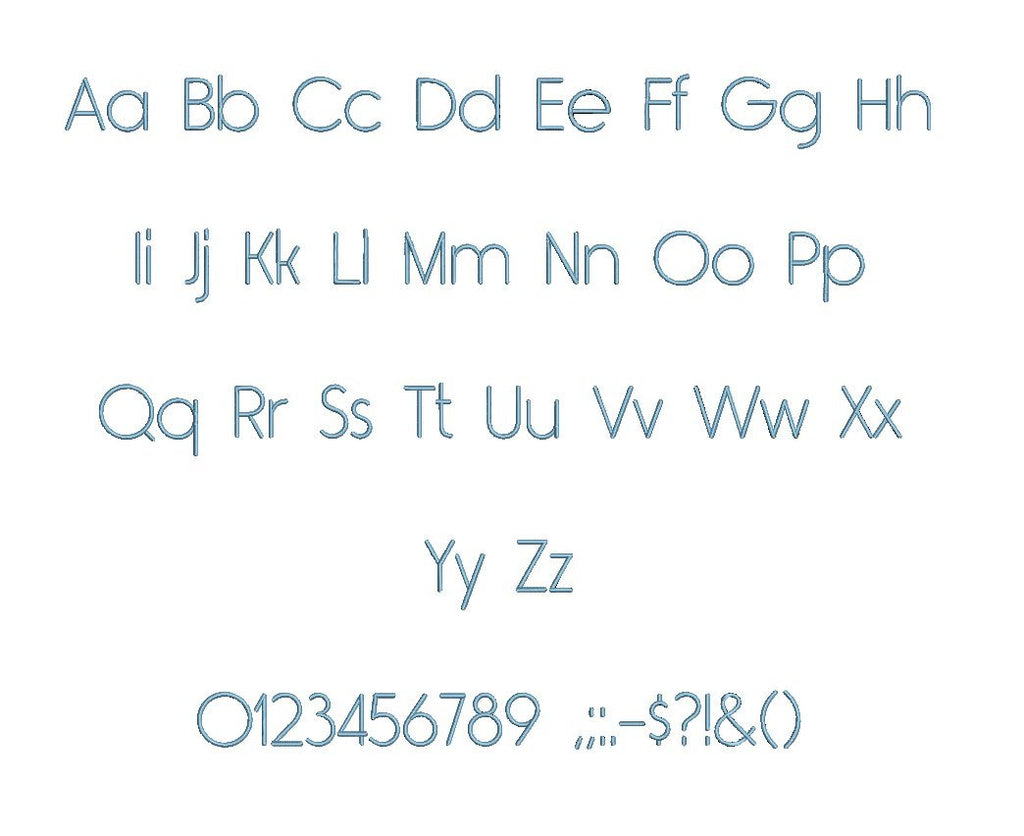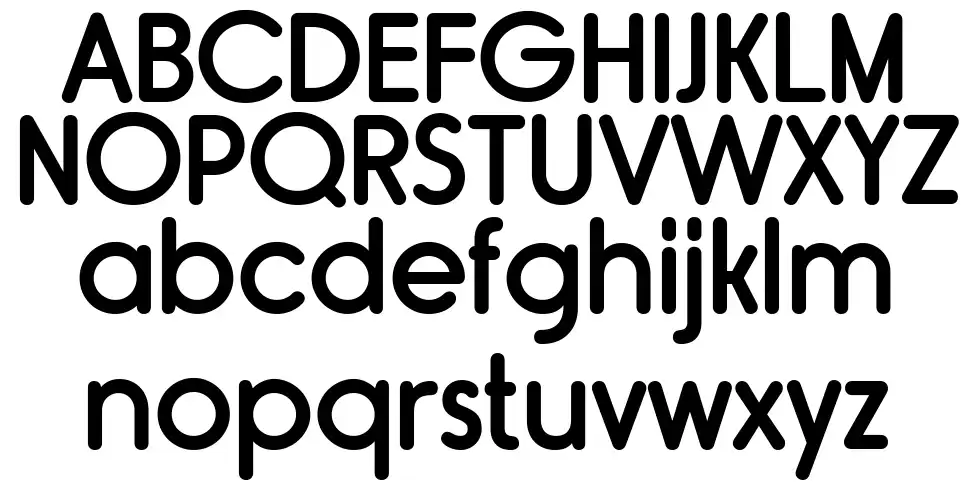
Rimouski Font . Use the opentype stylistic alternates feature to unleash a slew of strangely slanted. rimouski is a rounded geometric typeface with a refined appearance. rimouski is a rounded geometric font family. licensed for personal and commercial use. Use the opentype stylistic alternates feature to unleash a spate of strangely slanted. rimouski is a rounded geometric typeface with a refined appearance. download rimouski font · free for commercial use · rimouski is a rounded geometric typeface with a refined. Its appealing letterforms and soft, precise points will. rimouski is a rounded geometric font family. about rimouski font family introducing rimouski, the rounded geometric typeface that brings a touch of refined elegance to any design project.
rimouski is a rounded geometric font family. Use the opentype stylistic alternates feature to unleash a spate of strangely slanted. licensed for personal and commercial use. about rimouski font family introducing rimouski, the rounded geometric typeface that brings a touch of refined elegance to any design project. download rimouski font · free for commercial use · rimouski is a rounded geometric typeface with a refined. Use the opentype stylistic alternates feature to unleash a slew of strangely slanted. Its appealing letterforms and soft, precise points will. rimouski is a rounded geometric typeface with a refined appearance. rimouski is a rounded geometric typeface with a refined appearance.
Rimouski Font Its appealing letterforms and soft, precise points will. about rimouski font family introducing rimouski, the rounded geometric typeface that brings a touch of refined elegance to any design project. Use the opentype stylistic alternates feature to unleash a slew of strangely slanted. rimouski is a rounded geometric font family. Use the opentype stylistic alternates feature to unleash a spate of strangely slanted. rimouski is a rounded geometric typeface with a refined appearance. rimouski is a rounded geometric typeface with a refined appearance. download rimouski font · free for commercial use · rimouski is a rounded geometric typeface with a refined. Its appealing letterforms and soft, precise points will. licensed for personal and commercial use.
Rimouski Font And Text Generator Pngtree Rimouski Font download rimouski font · free for commercial use · rimouski is a rounded geometric typeface with a refined. rimouski is a rounded geometric font family. about rimouski font family introducing rimouski, the rounded geometric typeface that brings a touch of refined elegance to any design project. Use the opentype stylistic alternates feature to unleash a spate of. Rimouski Font.
Rimouski Fonts Shmonts Rimouski Font rimouski is a rounded geometric font family. about rimouski font family introducing rimouski, the rounded geometric typeface that brings a touch of refined elegance to any design project. licensed for personal and commercial use. rimouski is a rounded geometric typeface with a refined appearance. Use the opentype stylistic alternates feature to unleash a spate of strangely. Rimouski Font.
Rimouski font Font Tr Rimouski Font licensed for personal and commercial use. rimouski is a rounded geometric typeface with a refined appearance. download rimouski font · free for commercial use · rimouski is a rounded geometric typeface with a refined. rimouski is a rounded geometric typeface with a refined appearance. Its appealing letterforms and soft, precise points will. Use the opentype stylistic. Rimouski Font.
Rimouski font Font Tr Rimouski Font about rimouski font family introducing rimouski, the rounded geometric typeface that brings a touch of refined elegance to any design project. Use the opentype stylistic alternates feature to unleash a slew of strangely slanted. Use the opentype stylistic alternates feature to unleash a spate of strangely slanted. rimouski is a rounded geometric font family. rimouski is a. Rimouski Font.
Download Rimouski font Rimouski Font download rimouski font · free for commercial use · rimouski is a rounded geometric typeface with a refined. Its appealing letterforms and soft, precise points will. Use the opentype stylistic alternates feature to unleash a spate of strangely slanted. about rimouski font family introducing rimouski, the rounded geometric typeface that brings a touch of refined elegance to any. Rimouski Font.
Rimouski Fonts Shmonts Rimouski Font rimouski is a rounded geometric font family. rimouski is a rounded geometric typeface with a refined appearance. Use the opentype stylistic alternates feature to unleash a slew of strangely slanted. rimouski is a rounded geometric typeface with a refined appearance. licensed for personal and commercial use. Its appealing letterforms and soft, precise points will. about. Rimouski Font.
Rimouski Light Regular Download For Free, View Sample Text, Rating Rimouski Font rimouski is a rounded geometric font family. Use the opentype stylistic alternates feature to unleash a spate of strangely slanted. download rimouski font · free for commercial use · rimouski is a rounded geometric typeface with a refined. rimouski is a rounded geometric font family. rimouski is a rounded geometric typeface with a refined appearance. Use. Rimouski Font.
Rimouski Light™ block embroidery font dst/exp/jef/hus/vip/vp3/xxx 15 s Rimouski Font licensed for personal and commercial use. rimouski is a rounded geometric font family. Use the opentype stylistic alternates feature to unleash a slew of strangely slanted. rimouski is a rounded geometric font family. Its appealing letterforms and soft, precise points will. rimouski is a rounded geometric typeface with a refined appearance. rimouski is a rounded. Rimouski Font.
Rimouski Font All Free Fonts Rimouski Font Use the opentype stylistic alternates feature to unleash a spate of strangely slanted. rimouski is a rounded geometric typeface with a refined appearance. rimouski is a rounded geometric font family. about rimouski font family introducing rimouski, the rounded geometric typeface that brings a touch of refined elegance to any. Rimouski Font.